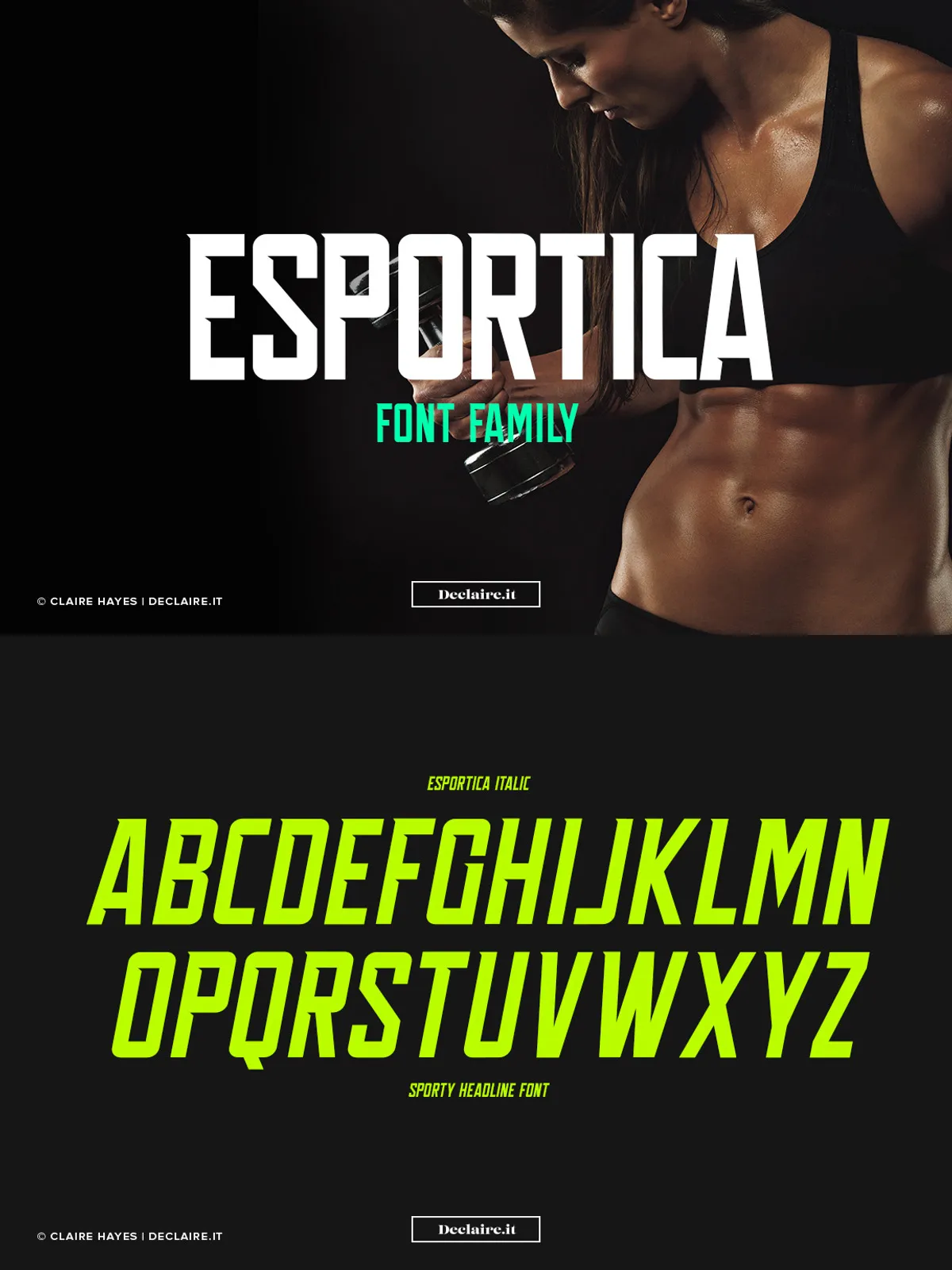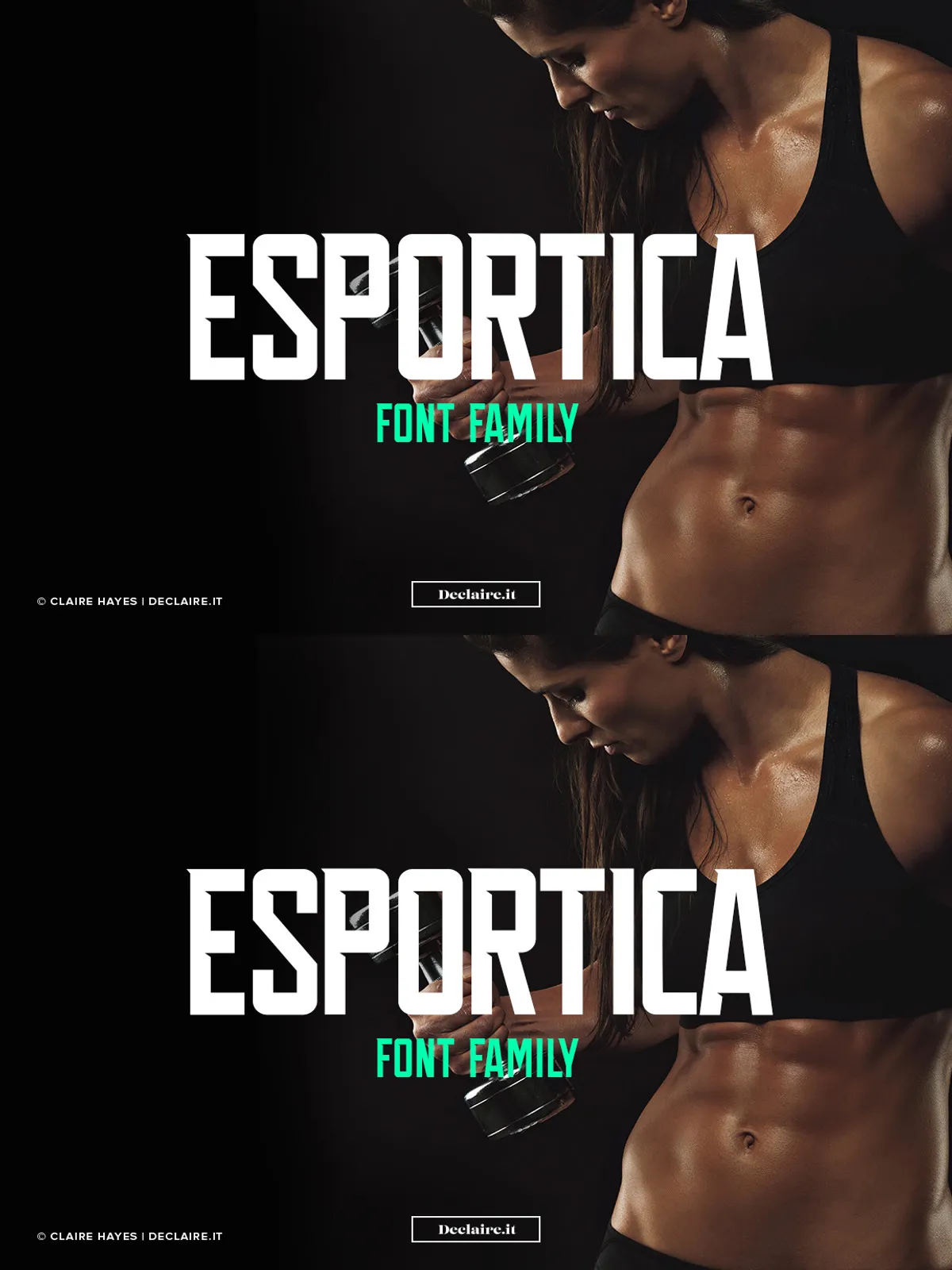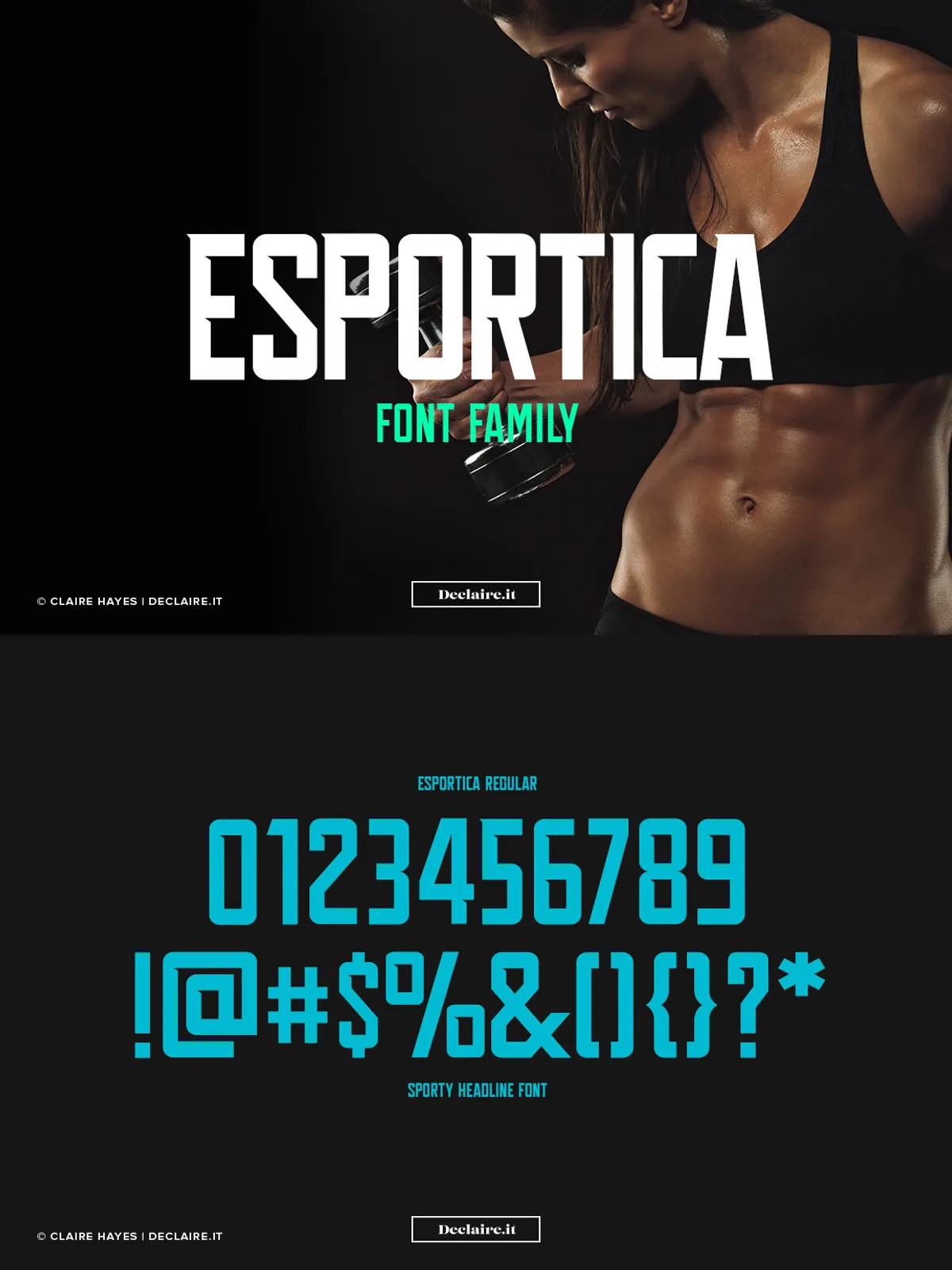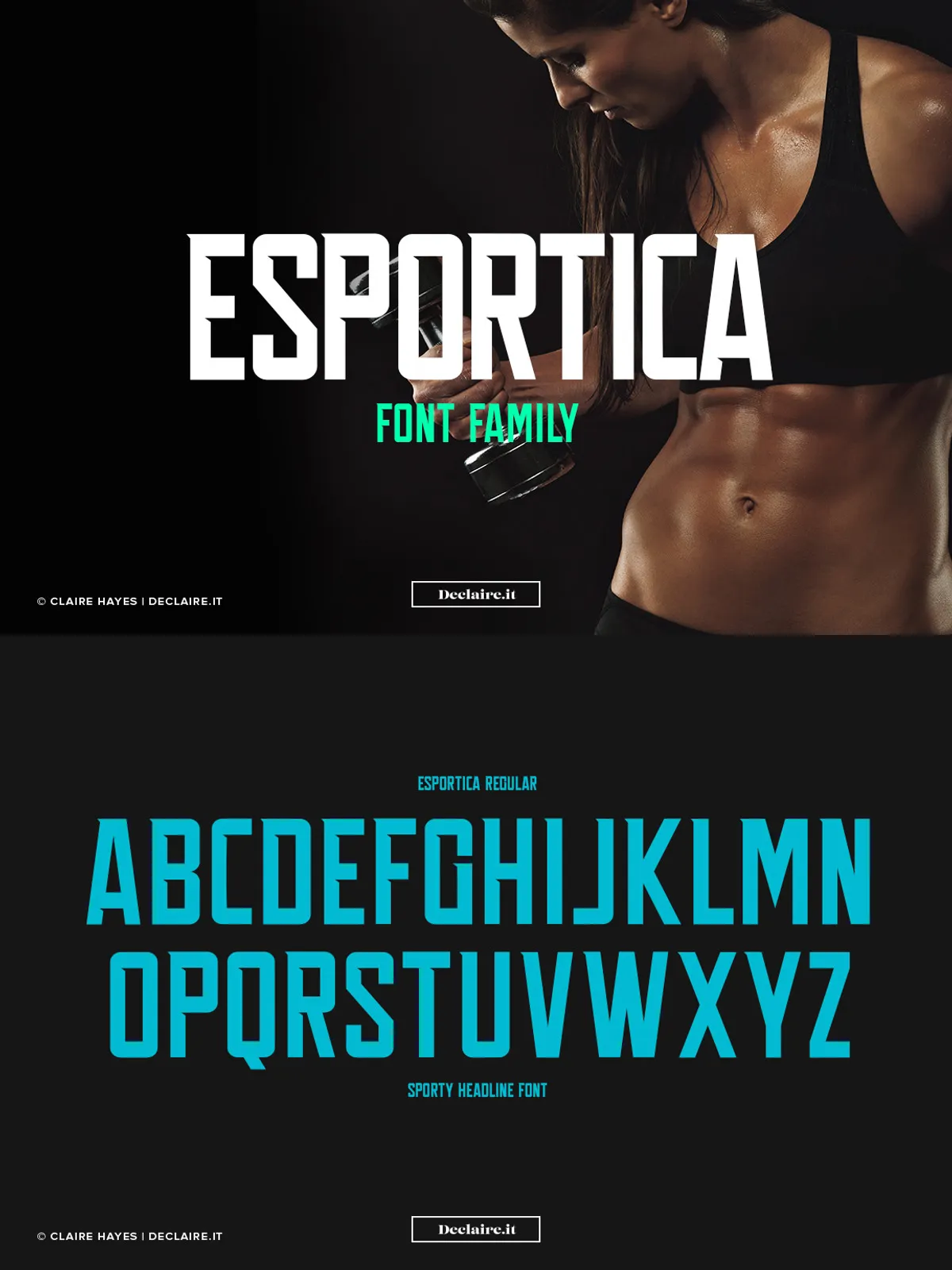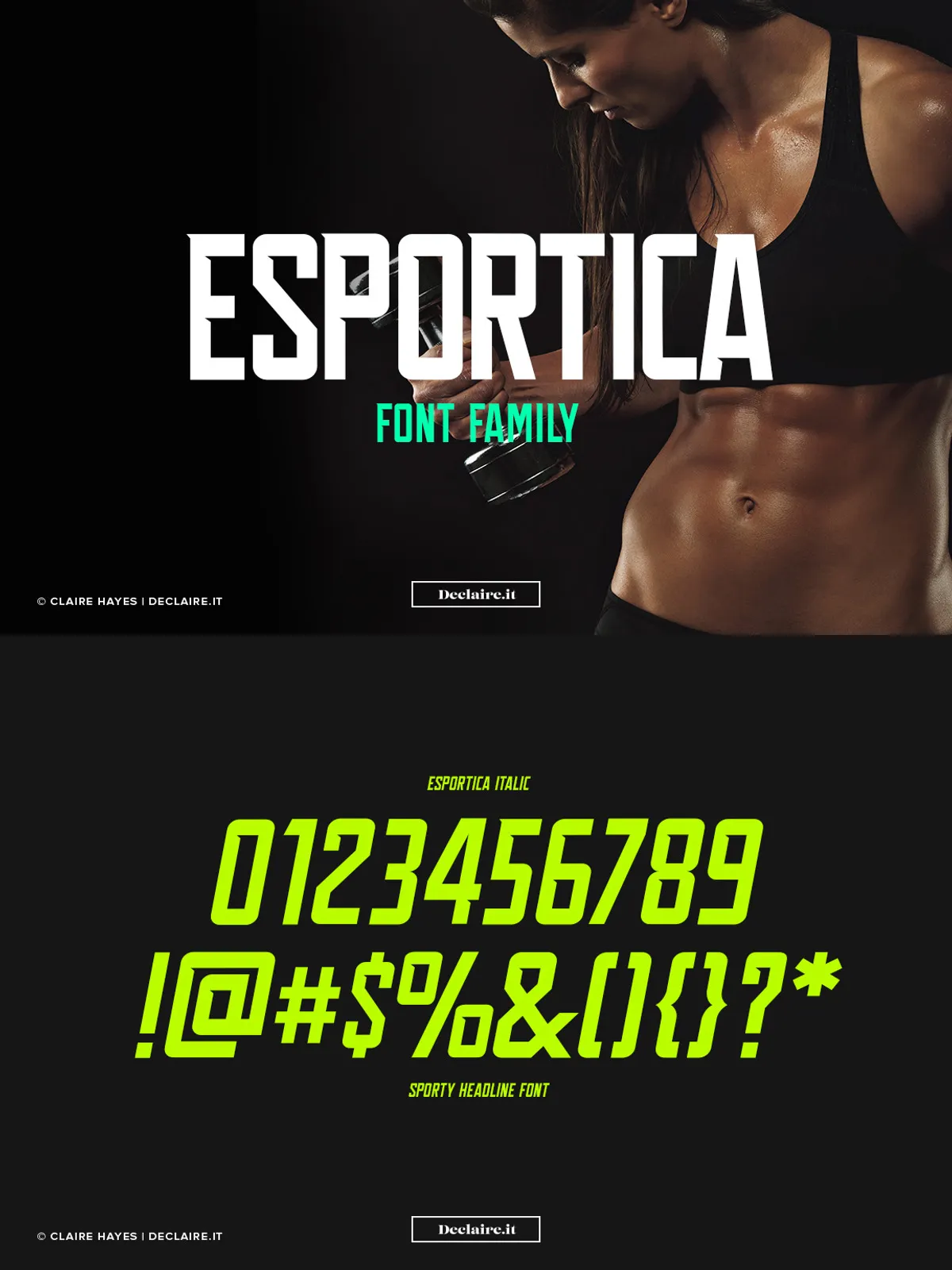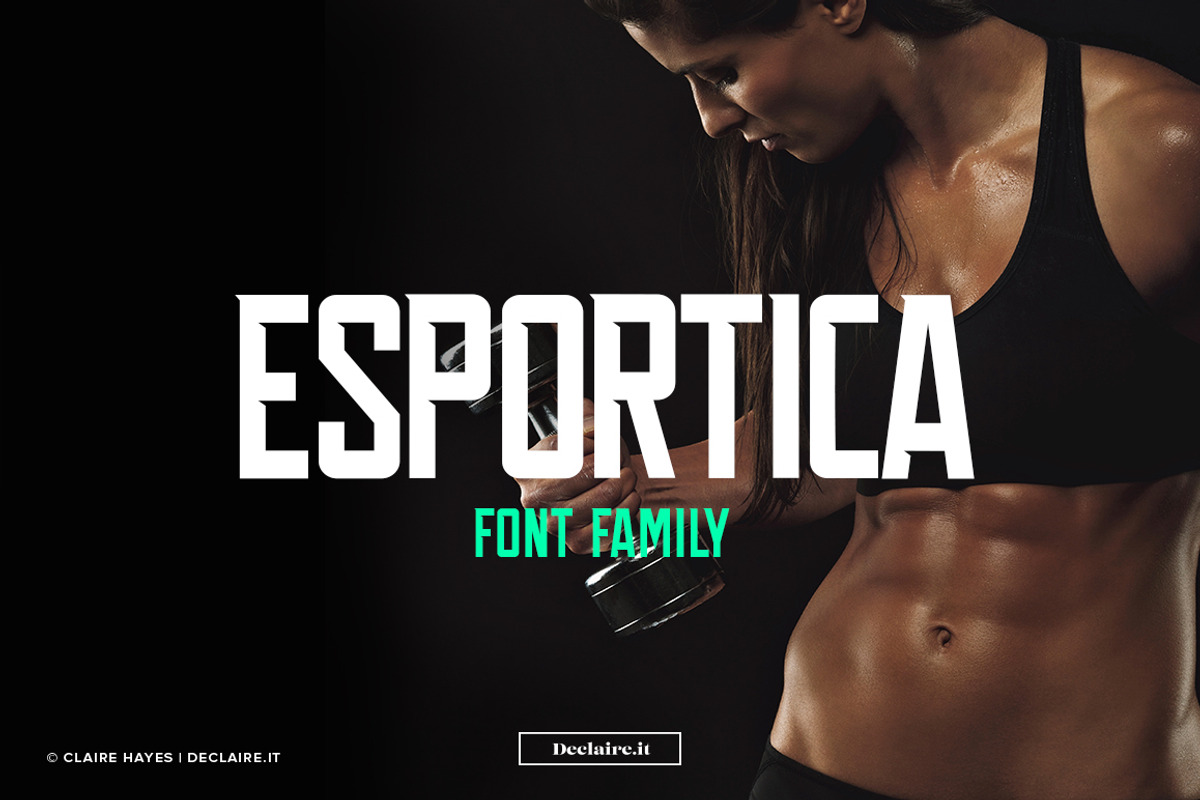
Esportica is a dynamic modern display typeface specially designed to capture attention and deliver strong visual impact in headline applications. This versatile font stands out with its bold yet clear letterforms, making it ideal for a wide variety of design projects that require prominence and character. From advertising campaigns to digital banners, Esportica injects a sense of excitement and contemporary style into your typographic presentations.
Extensive Glyph Set for Comprehensive Typography
This typeface boasts a broad repertoire of 230 glyphs, including both uppercase and lowercase characters, numerals, various punctuation marks, and special symbols. This extensive character set ensures that designers have full textual flexibility and creative freedom. Whether you are creating a sleek logo, a compelling website header, or printed promotional material, Esportica accommodates diverse content while maintaining crisp readability.
Global Language Support and Compatibility
Esportica’s robust glyph collection extends beyond basic Latin characters to support multiple international languages. This multilingual capability makes it a highly practical choice for global brands, websites, and publications aiming to communicate effectively across different linguistic audiences without sacrificing visual harmony. Additionally, Esportica is fully compatible with both Mac and PC systems, enabling smooth and efficient integration into professional design workflows regardless of platform preferences.
Design Applications and Usability
Esportica shines in scenarios where strong headline presence is paramount. Its modern aesthetic lends itself superbly to sports branding, gaming interfaces, tech product launches, and entertainment media. Designers appreciate its ability to command visual attention while retaining elegant proportions and clarity. The font’s clean yet impactful style helps establish bold identities and ensures messaging is delivered with confidence and immediacy.
Active Typography Supporting Creative Expression
Designed with versatility and active engagement in mind, Esportica allows typographers to experiment with design layouts and visual hierarchies. The wide glyph set supports creative alternates and customization, encouraging users to build unique typographic styles that stand out in competitive markets. This characteristic makes Esportica more than just a font; it becomes a powerful tool for expressive storytelling through type.
Summary: Why Choose Esportica for Your Next Project?
Choosing Esportica means opting for a modern, reliable, and highly versatile display font that excels in delivering headline impact. Its extensive glyph range, multilingual support, and cross-platform compatibility combine to provide a comprehensive solution for demanding design projects. Whether for digital or print, Esportica offers the clarity and boldness necessary to elevate your branding and visual communication effortlessly.
- Modern Display Typeface: Specially built for headlines and impactful use.
- Extensive Glyphs: 230 characters including uppercase, lowercase, numerals, and punctuation.
- Multilingual Support: Supports numerous international languages for global reach.
- Versatile Design Applications: Ideal for sports branding, tech, gaming, and entertainment.
- Active Typography: Allows creative freedom and unique typographic combinations.